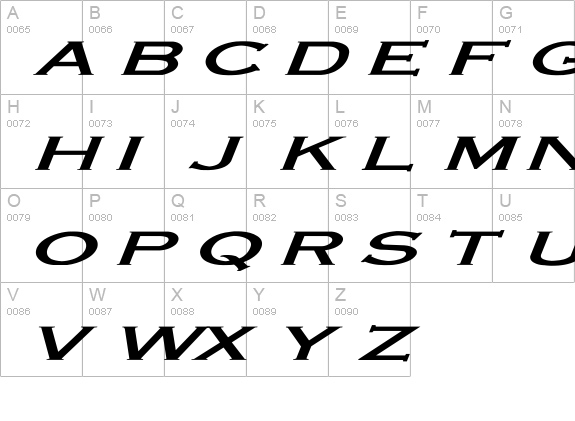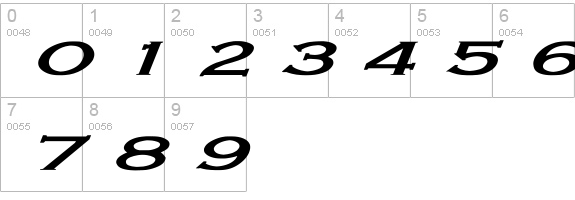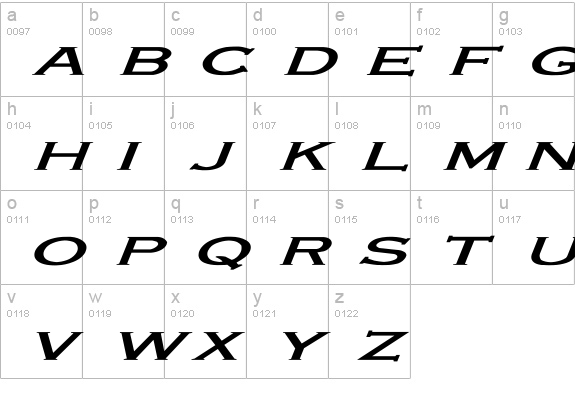
Engraver-Light Ex Bold Italic is a refined, elegant, italic variant in the Engraver typeface family \xE2\x80\x94 well suited to elegant body text, refined sub-headings, and luxury branding.
Engraver-Light Ex Bold Italic font is a striking and sophisticated typeface that exudes elegance and professionalism. With its sleek lines and bold, italicized design, this font is perfect for adding a touch of sophistication to any project. Whether you're designing a logo, creating a brochure, or working on a website, Engraver-Light Ex Bold Italic will make your text stand out and leave a lasting impression. The best part? This incredible font is completely free to download at FontsMarket.com. That's right, you can access this beautiful typeface at no cost and use it in your projects without any restrictions. So why wait? Elevate your designs with Engraver-Light Ex Bold Italic today and make a statement with every word you write.